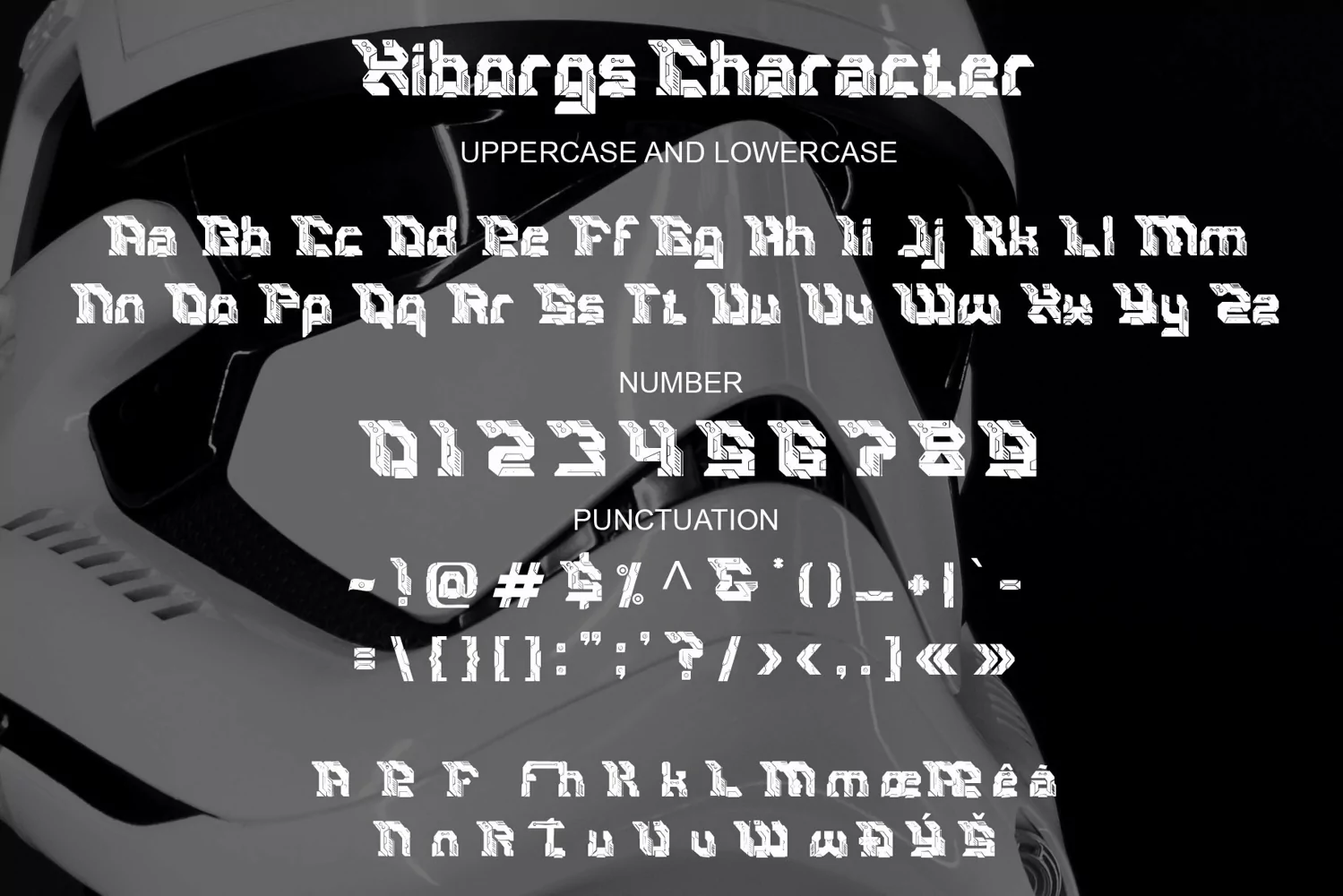
**Xiborgs Font**
This pair was inspired by the Cyber poster design that i saw on some coffee shop, It was crafted by hand specially to add natural handmade feeling in its brand identity than i make it clean with pentool.
Xiborgs font has 194 character set included
Xiborgs Font is very good looking in logo, labels, t-shirt prints, product packaging, invitations, advertising and others.